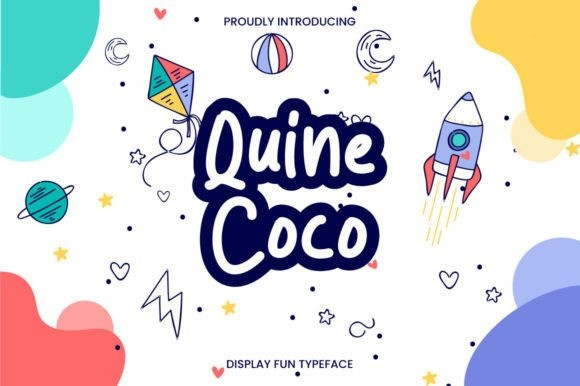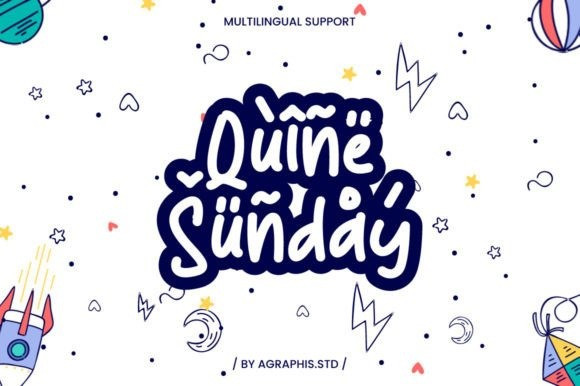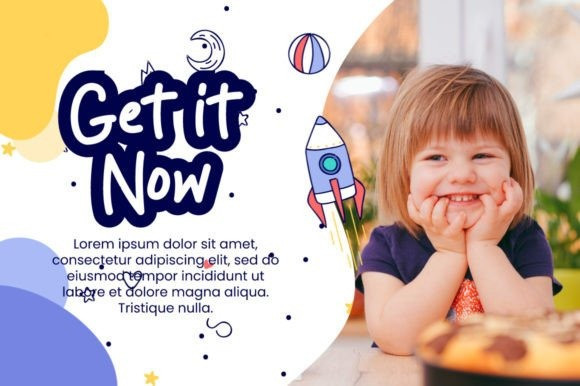
Quine Coco Font
Quine Coco is a display font full of positivity and character. A friendly typeface with charm and style! This font is perfect for quotes, headings, logos, branding, merchandise, and websites.